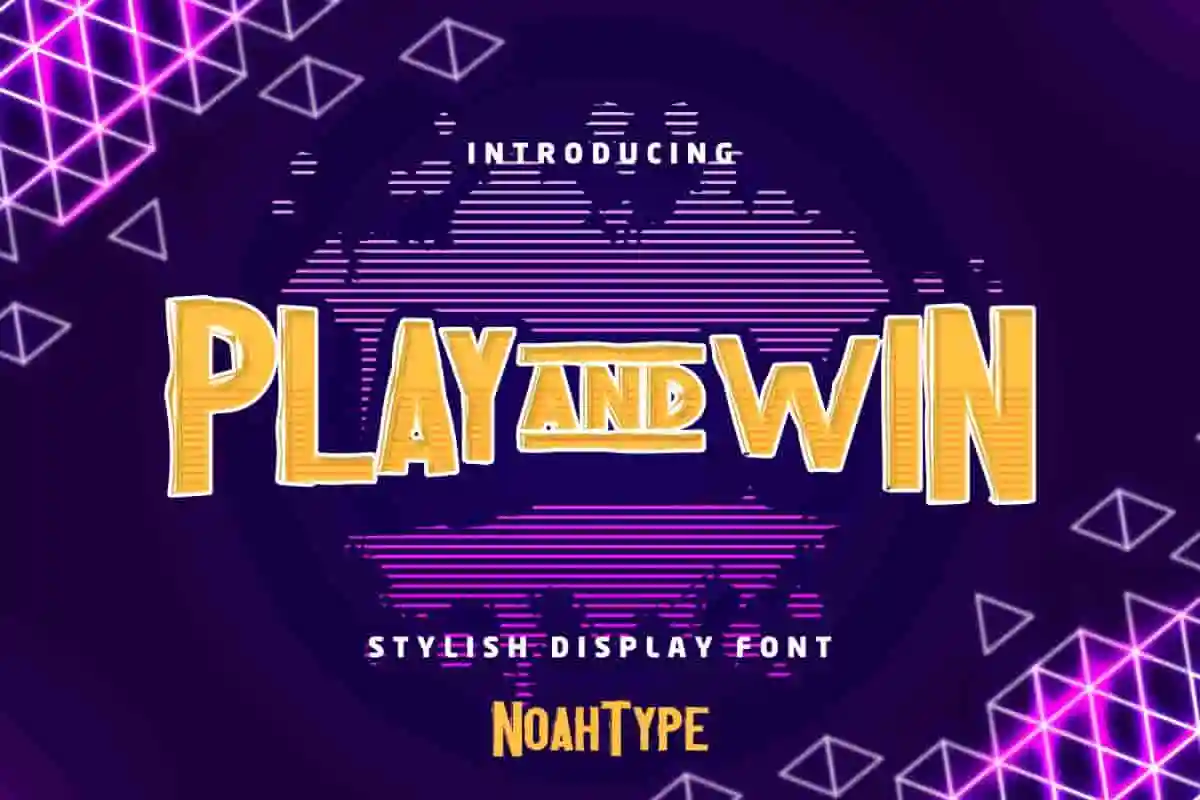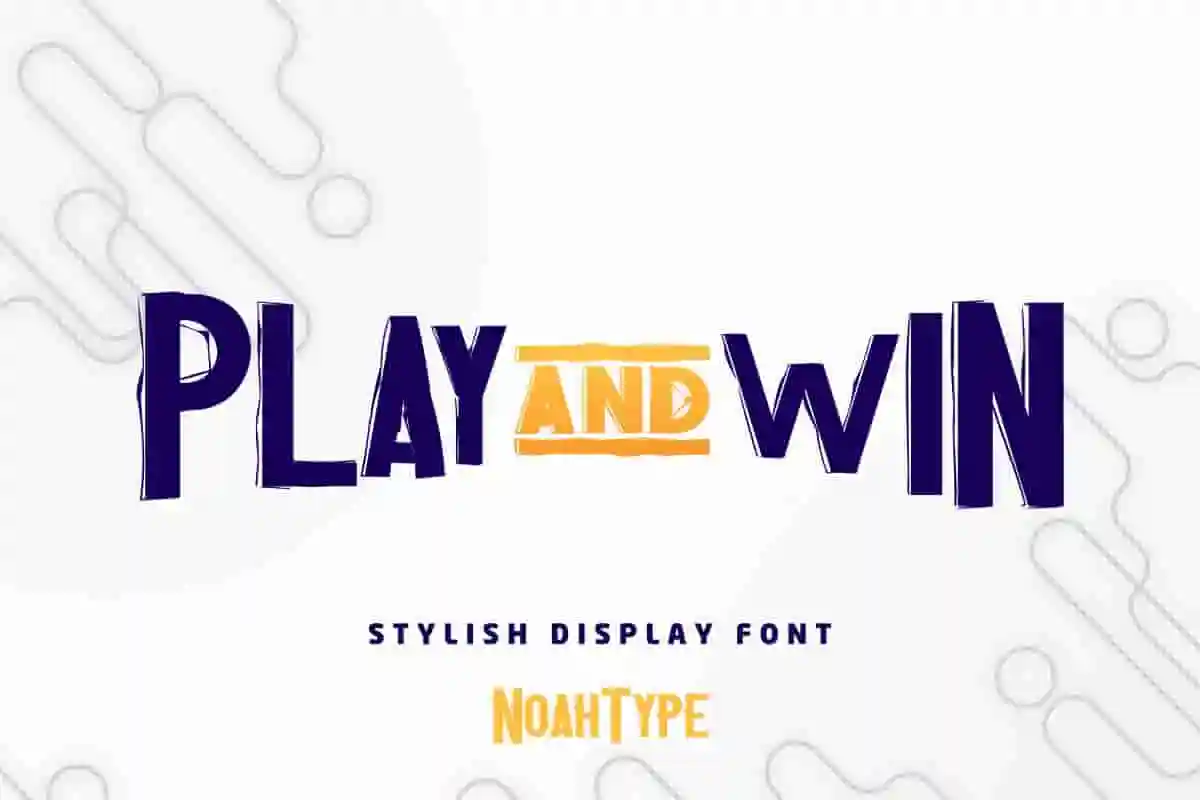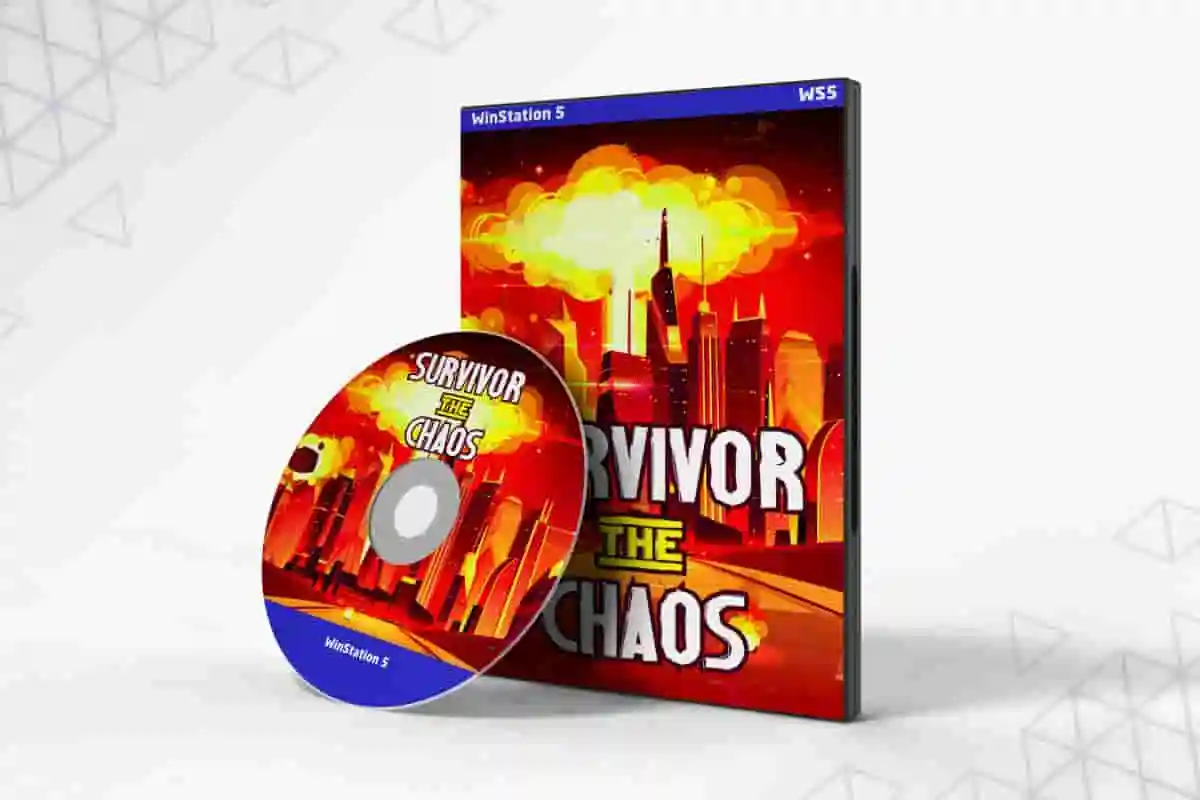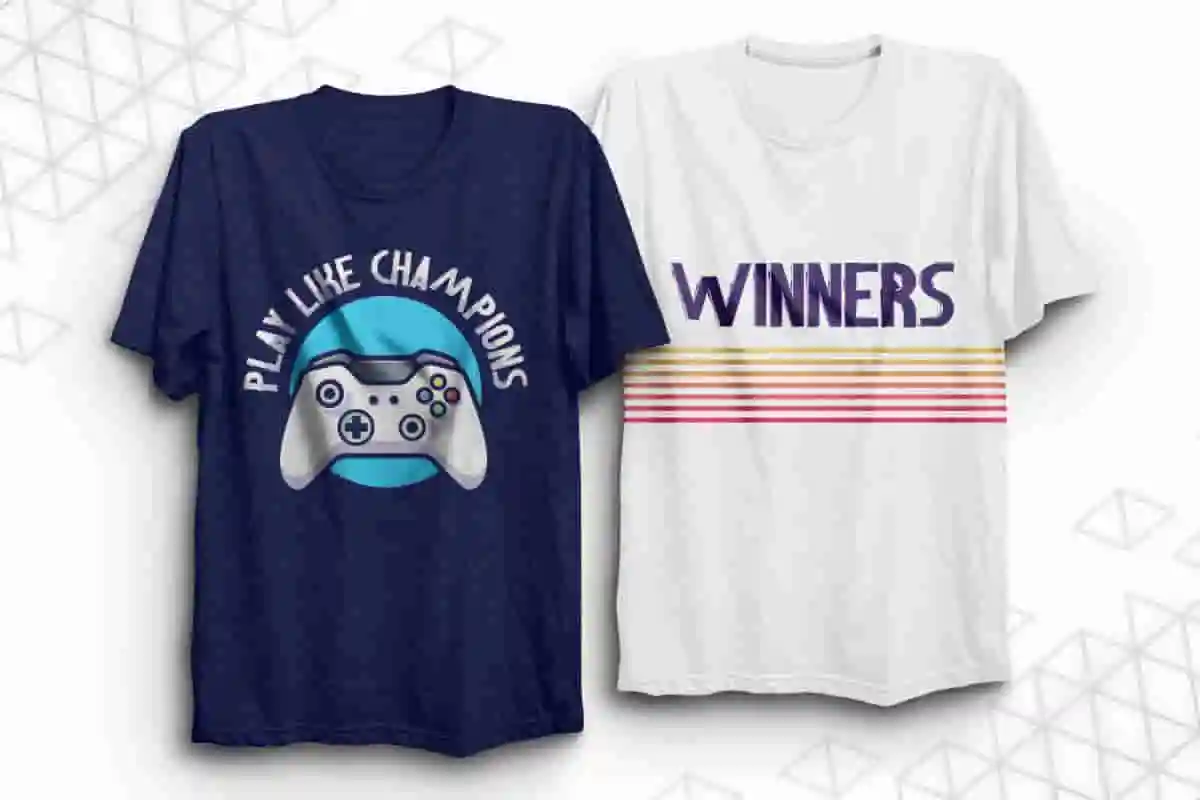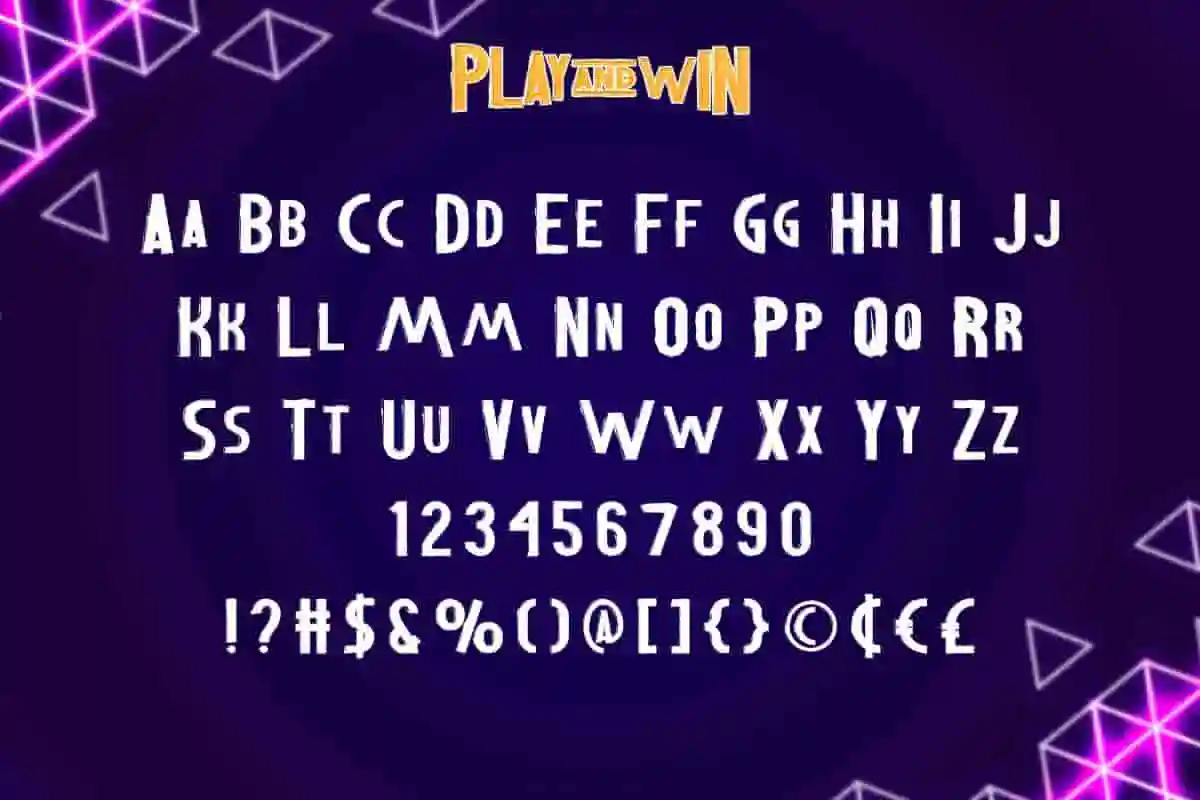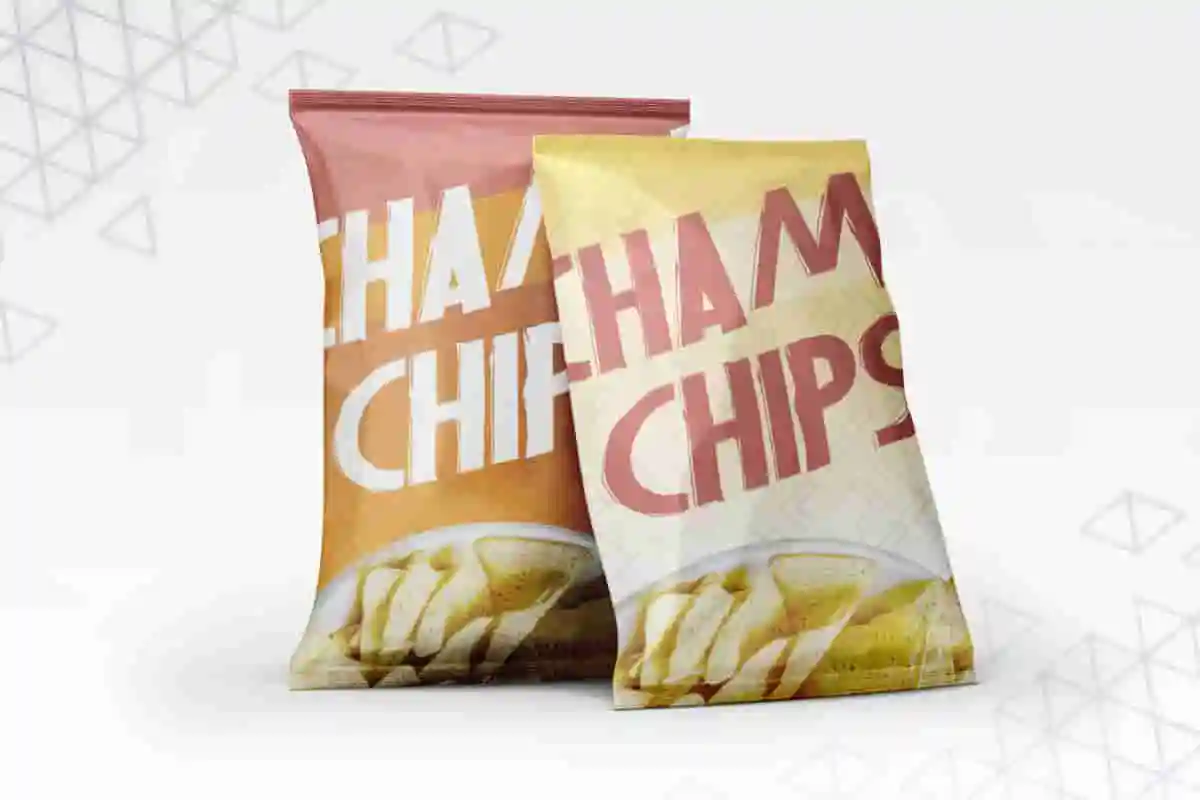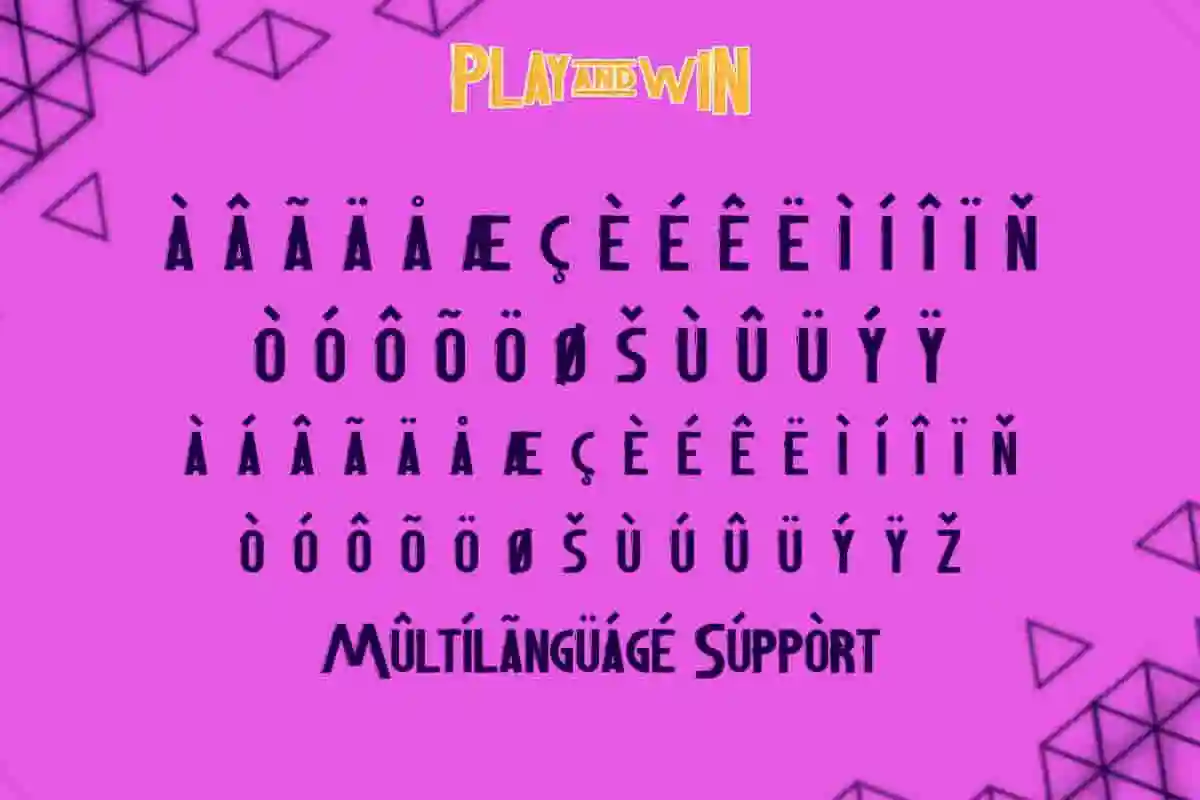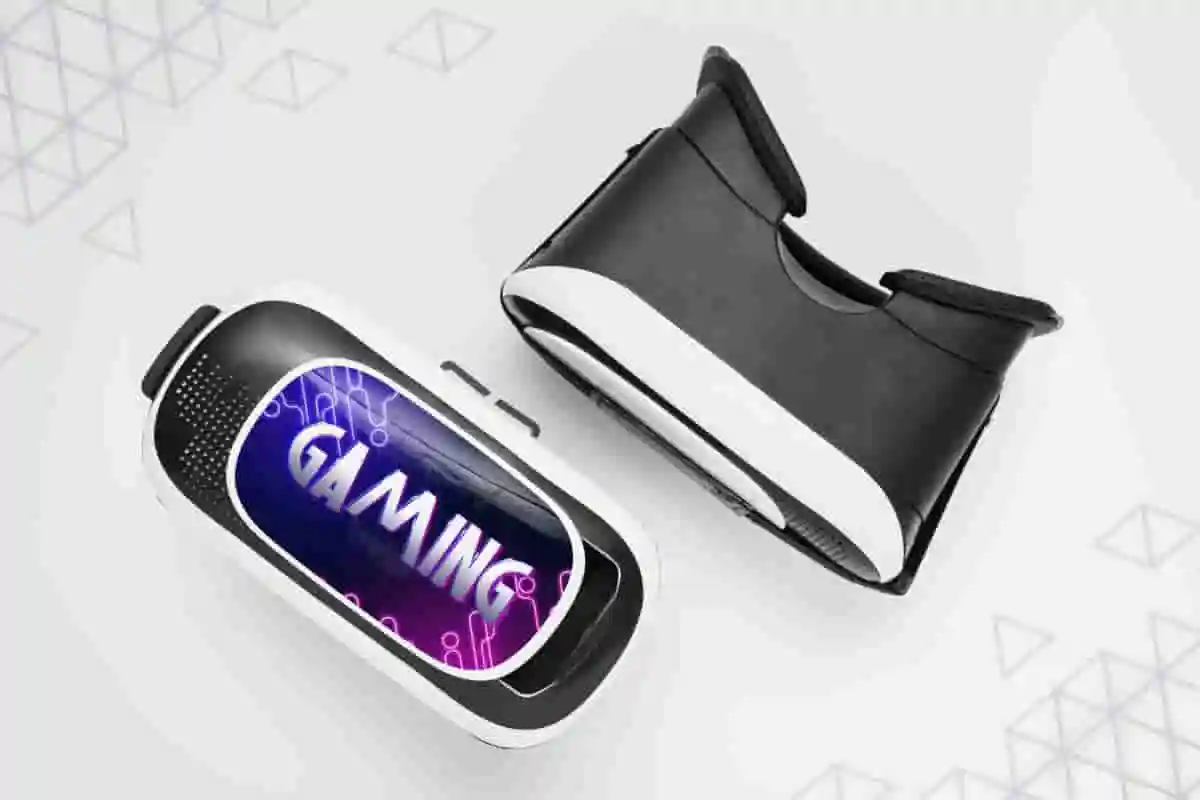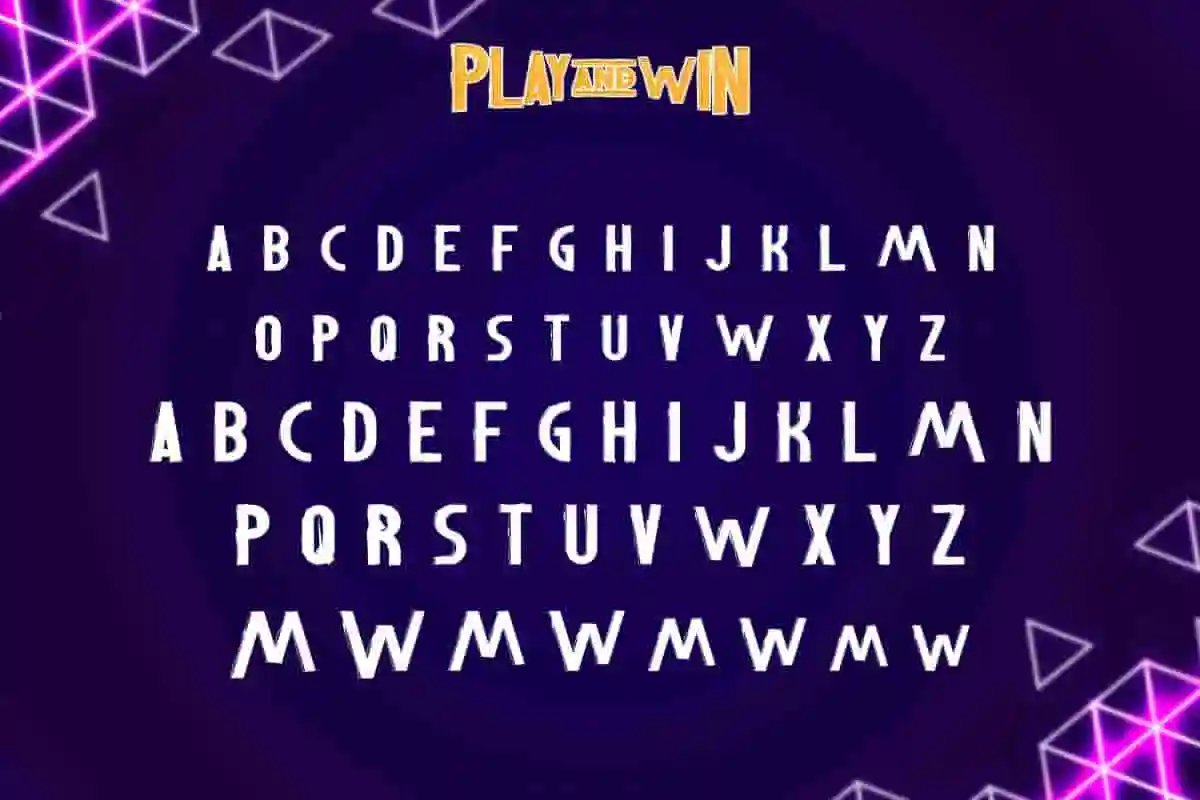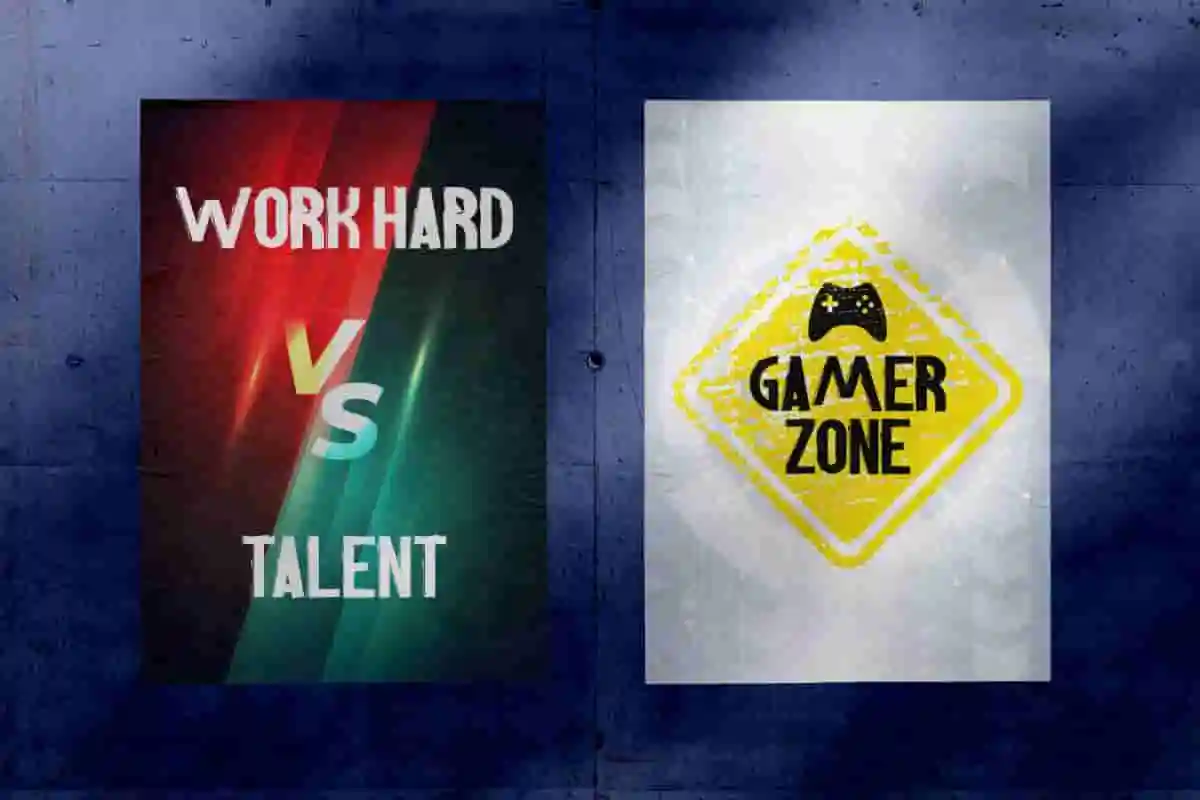
Play and Win Font is a rough yet playful display Font inspired by several video games. The font was made in 2021 by NoahType, It has a unique style that will bring the special look to the design that bring fun and uniqueness. It will be amazing for any project : games, technology, sports, film, fashion stylish, Food N Drink brands and many more. Play and Win Font includes full set of ALL CAPS Basic Characters, Numerals and Punctuation multi language support. The font comes with style options stylish handwriting font. It also comes with ligatures and alternative characters which are perfect for many projects.
Designed with sharp edges, clean lines, and stylish letterforms, Play and Win delivers a powerful visual punch while remaining easy to read. Its versatility makes it suitable for digital and print projects, ensuring your work leaves a lasting impression across all platforms. From social media graphics to product packaging, this font brings a winning energy to any creative endeavor.
Play and Win Font comes with special effect on its letters, something like a electrified, like many games effect. The font is ready to use both on Windows machine and Mac. It work well on Adobe software such as Illustrator, Photoshop and several other software. The font suits many industries : sports, games, movies, business, technologies and other industries.